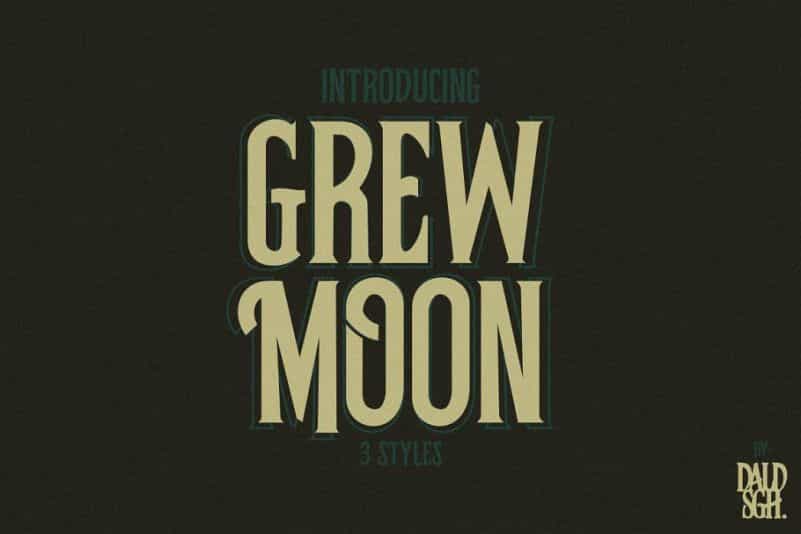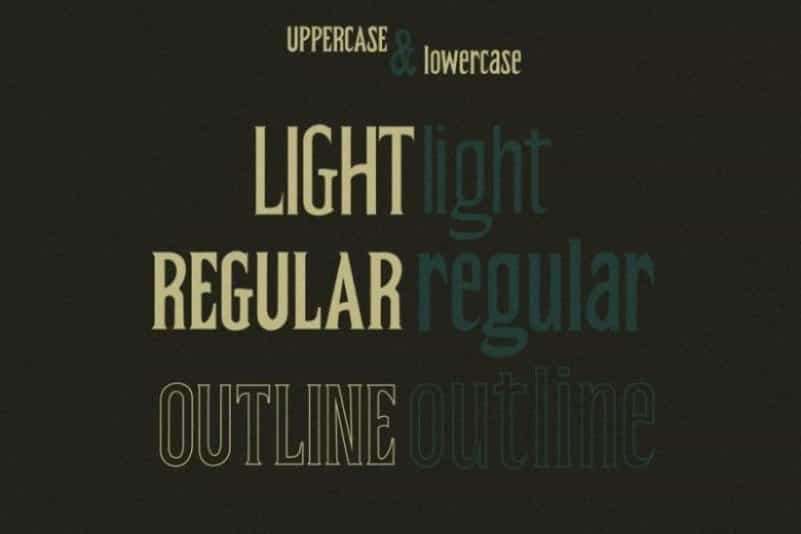
Grewmoon Vintage Font
Here is the Grewmoon vintage display font which is a label typeface with a touch of the old school. It is developed in a strong and dynamic label style. Grewmoon Font is perfect for any labels design of whiskey, rum or brandy. The name Grewmoon Vintage originates from vintage art.